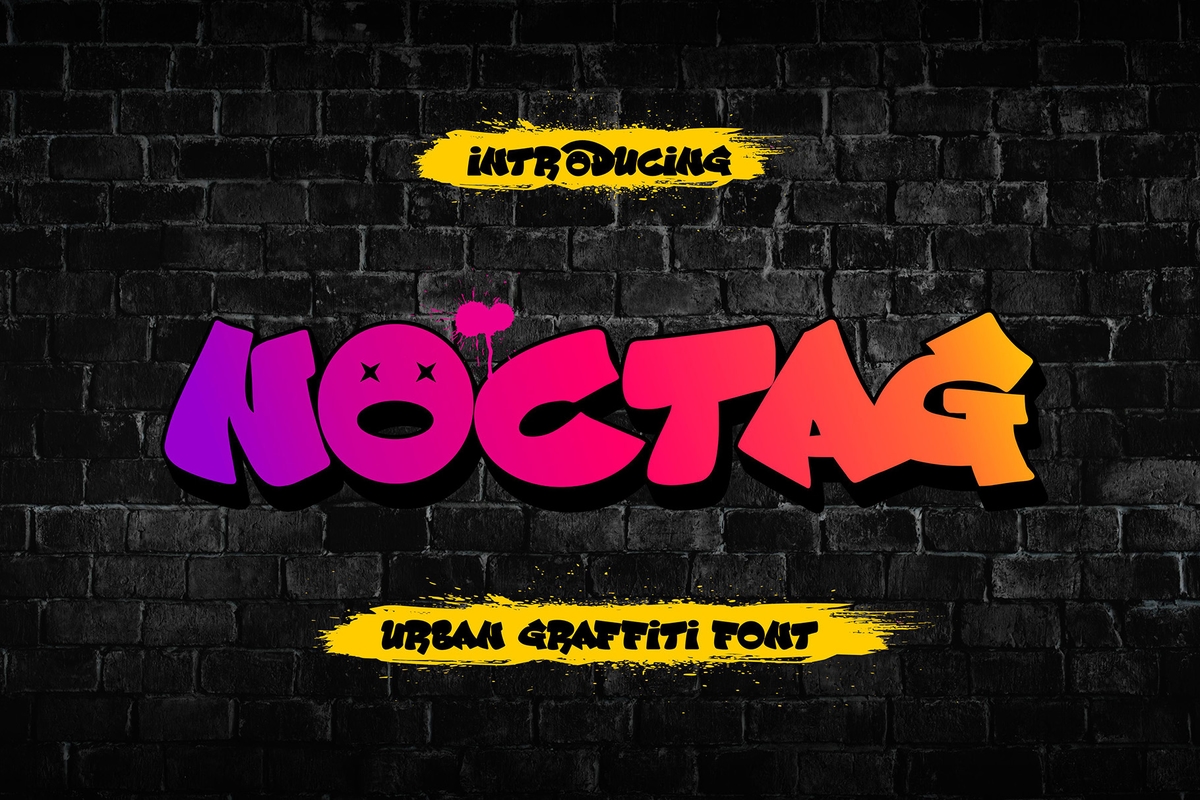
Noctag
his bold urban graffiti display typeface is crafted to capture the raw energy of street culture and modern graffiti art. With thick strokes, rounded forms, and expressive shapes, it brings a powerful street attitude to any design project. Perfect for designers working on streetwear branding, music artwork, gaming visuals, posters, and urban identity systems. The letterforms balance playful graffiti aesthetics with clean digital precision, ensuring readability while maintaining a strong person